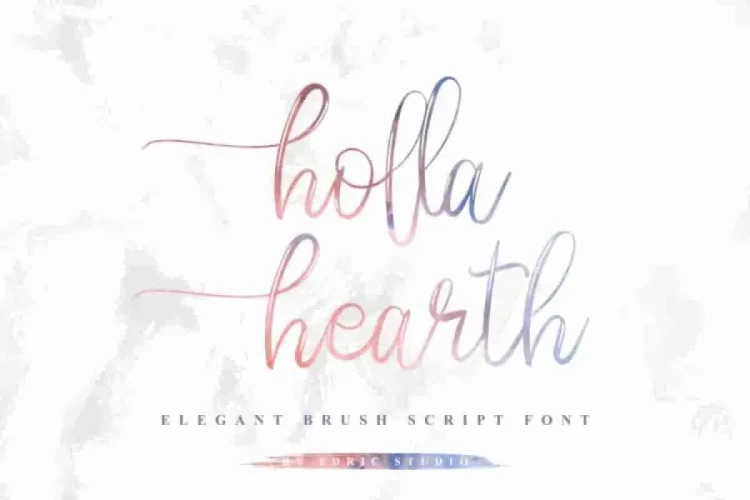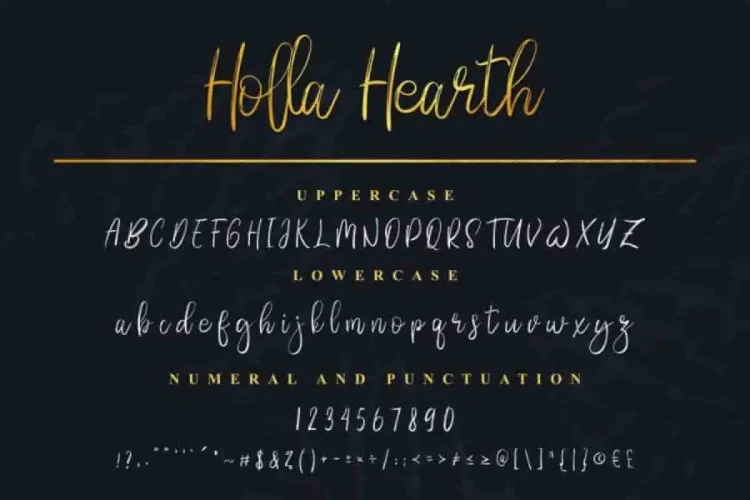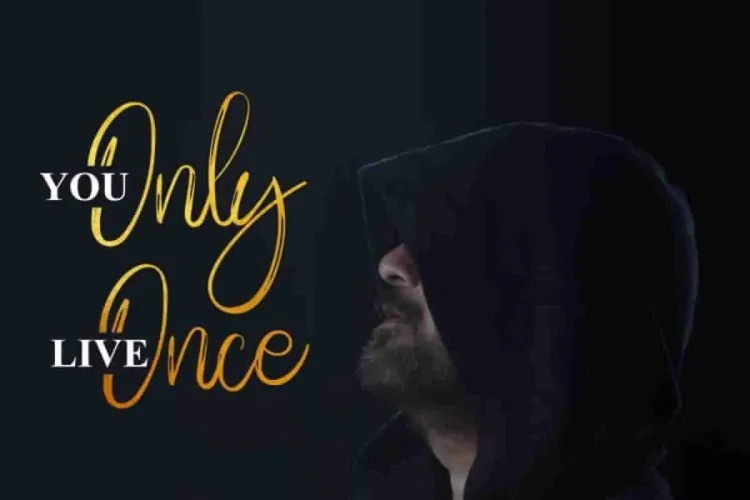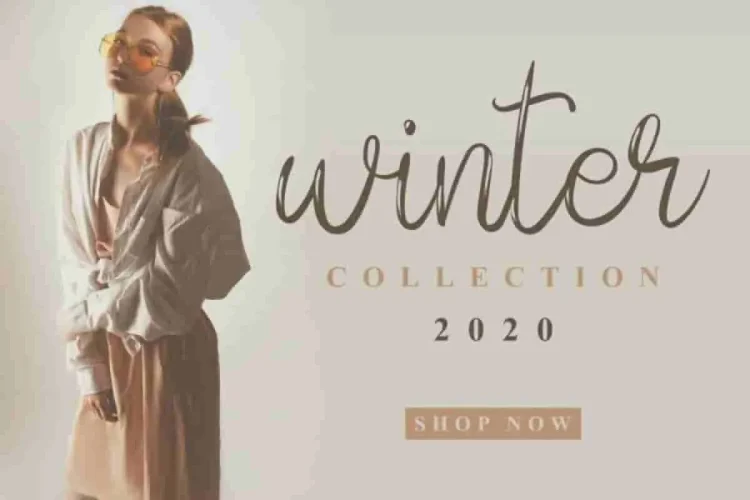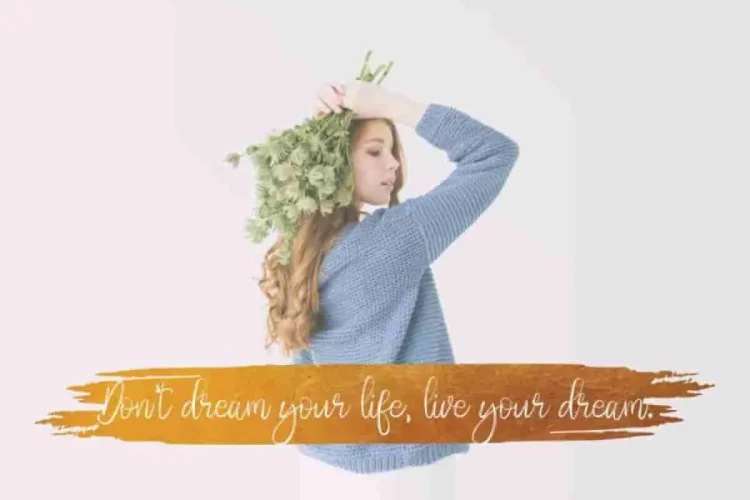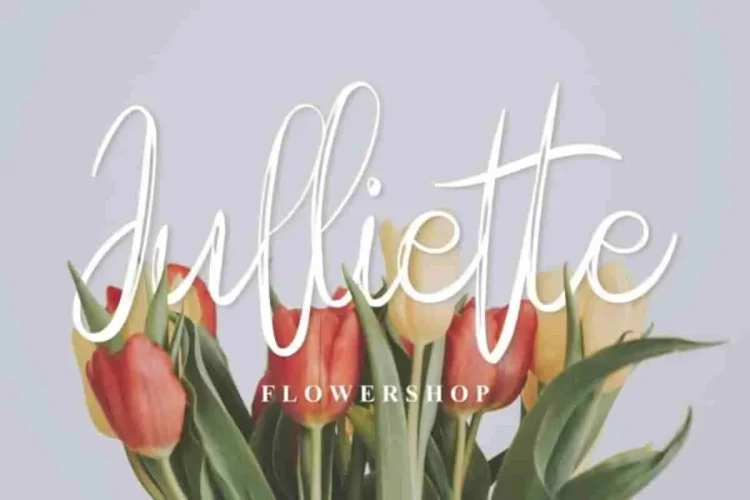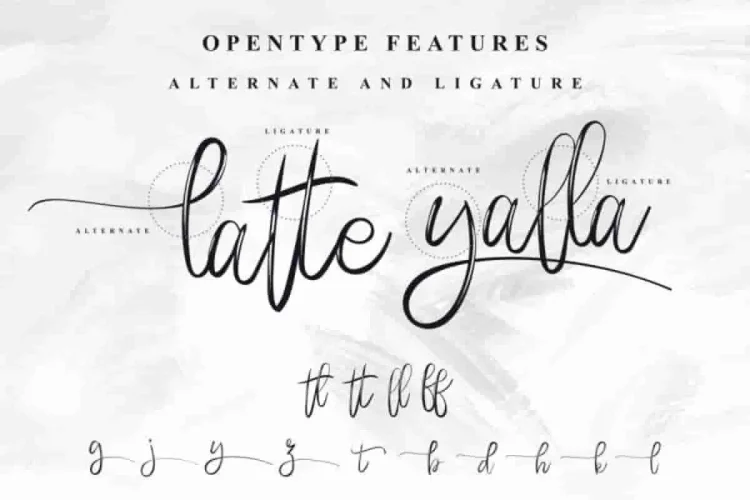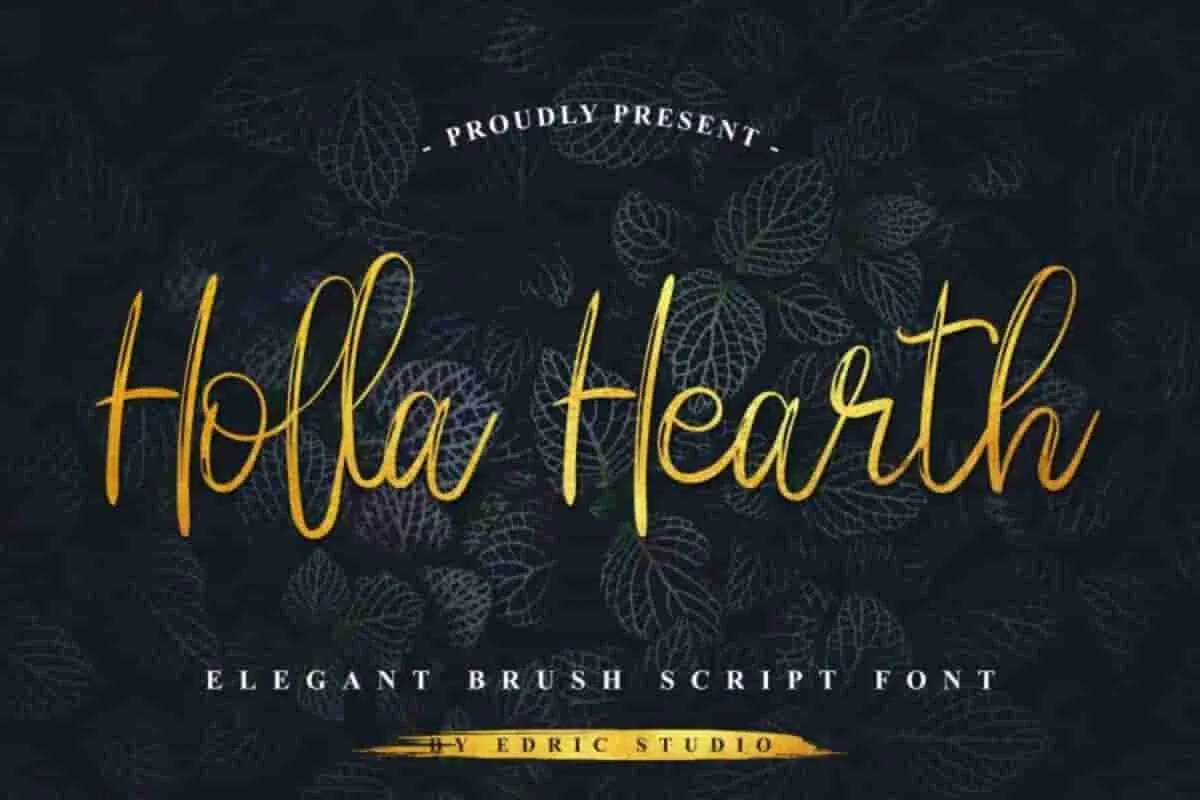
Holla hearth Brush Script Font
Please meet our new baby : Holla hearth Font
Holla hearth Font was made in 2019 from the Paris Van Java – Bandung, Indonesia.  Made by our happiest artist, right here at the office.
Dont take my word, but it is a stunning font! Made with textured brush look glyphs. Dont ask what this font will be awesome on. Because all cases of any of your designs projects will be stunning with this font.
Most of business industries will be great  and suitable with this font : florist, makeup, dentist, music, entertaiment, finance, construction, real estate, personal brand, law firm, game, apps, technology, travel, hotel etc
No problem! Holla hearth supports multilingual glyphs, making it suitable for international branding and diverse audiences.